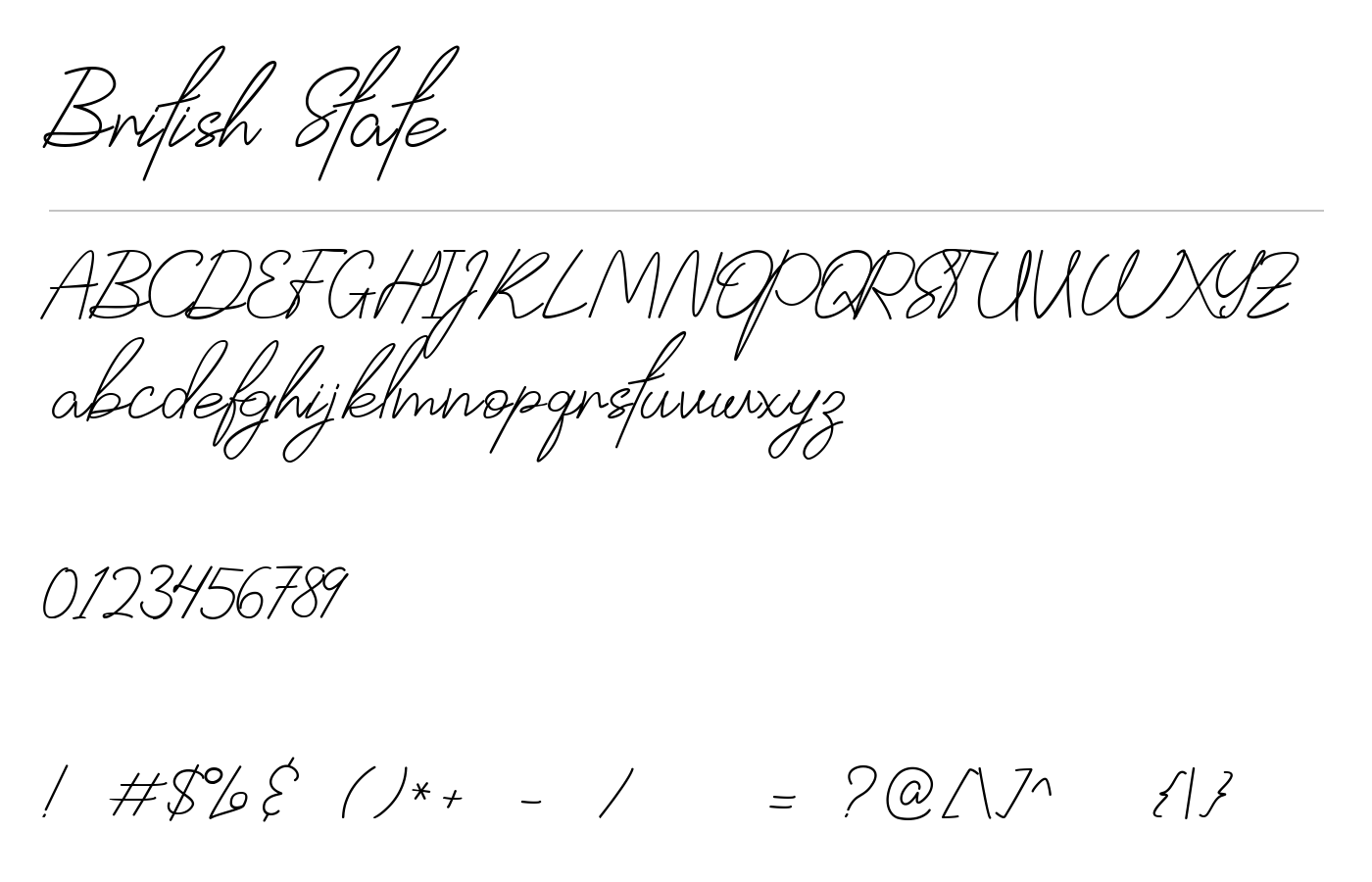
British State Font is a delicate, elegant script typeface characterized by its slender, flowing lines and a handwritten feel. Its light weight and tall, narrow letterforms with subtle loops create a refined, sophisticated style perfect for invitations, branding, and editorial accents where a touch of grace and personality is desired. This font works beautifully in designs aiming for a modern yet classic aesthetic with a personal, artistic flair.
British State Font
About British State Font
| Font family | British State Font |
| Designer | Diki Pradipta Tri Atmojo |